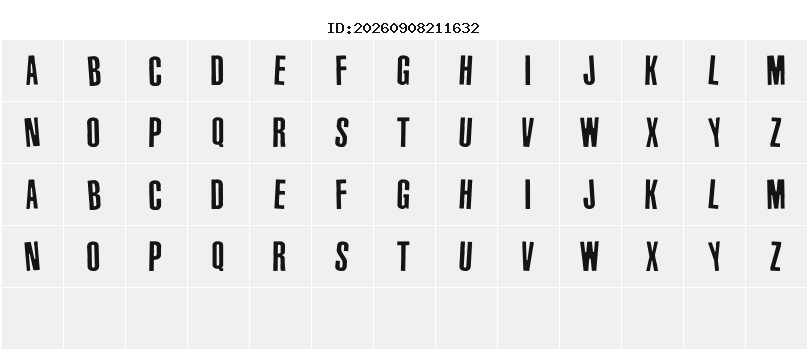
• Font Name: Vinyl Stickons
About Vinyl Stickons.ttf
Vinyl Stickons.ttf is a modern, elegant sans-serif font designed for ultimate readability and visual harmony. Perfect for branding, headlines, web design, and print materials.